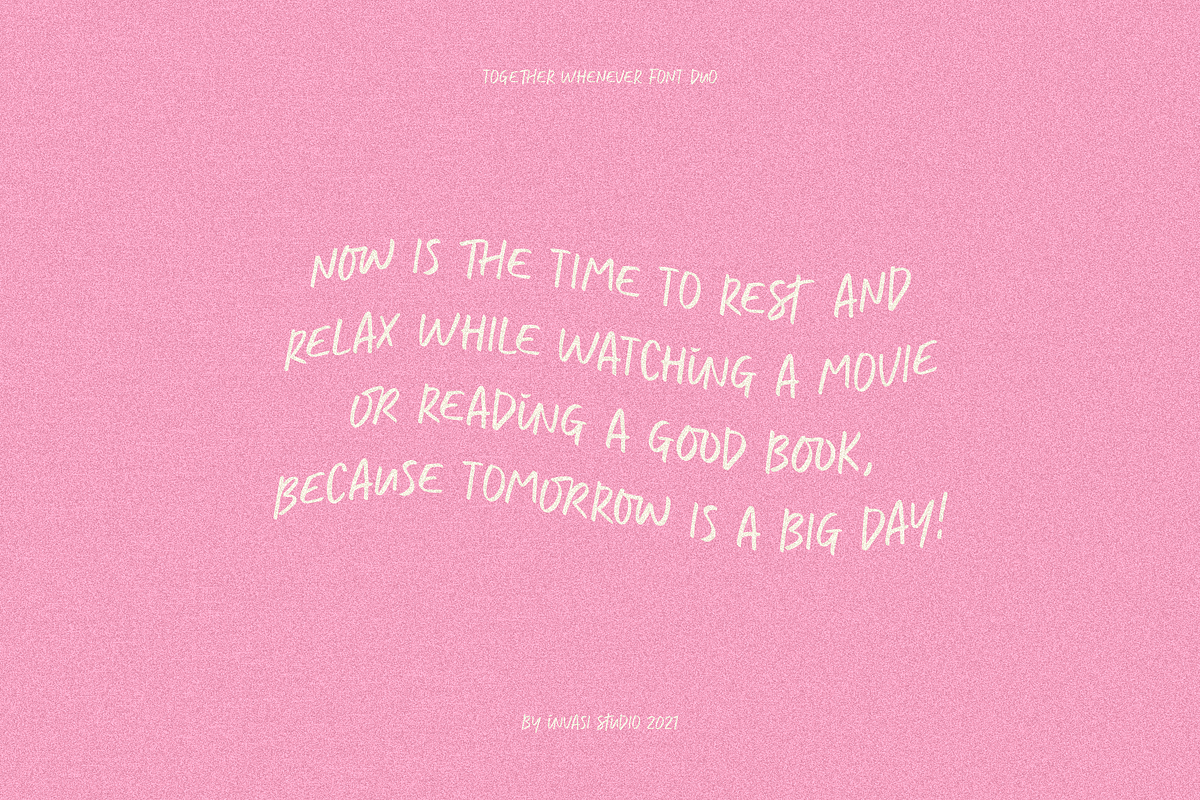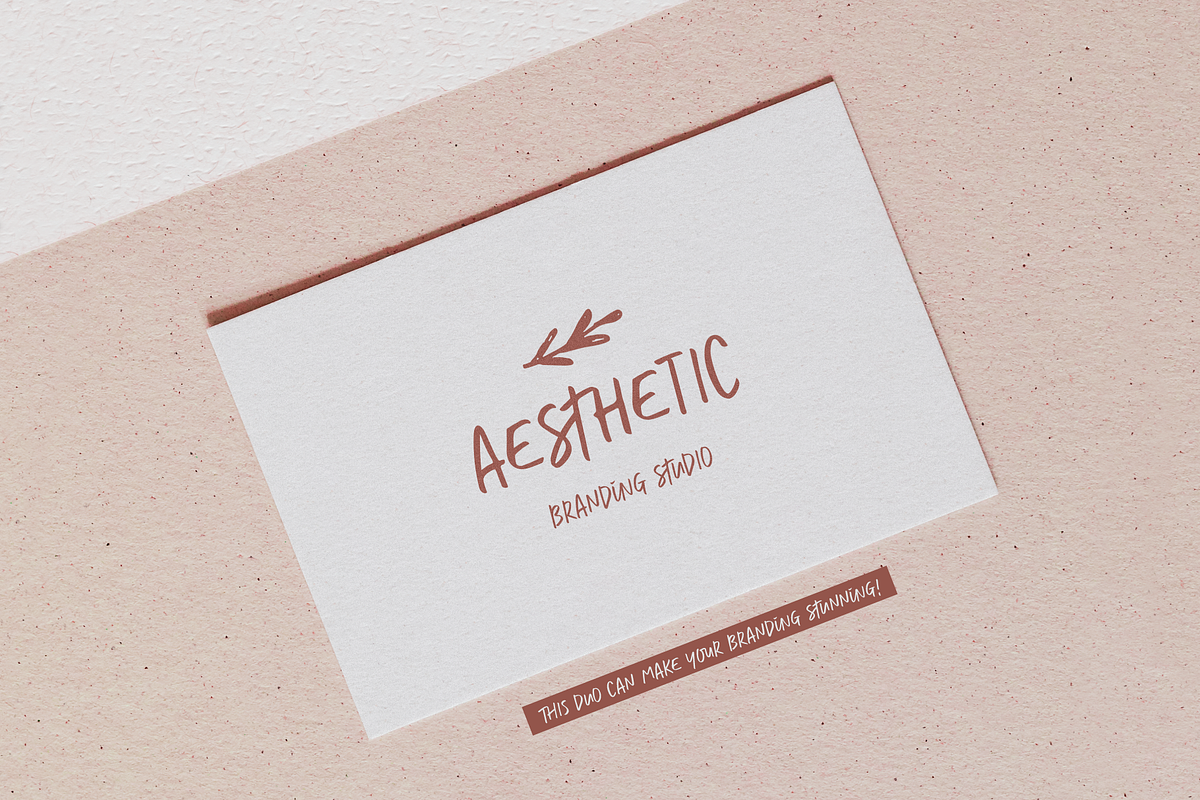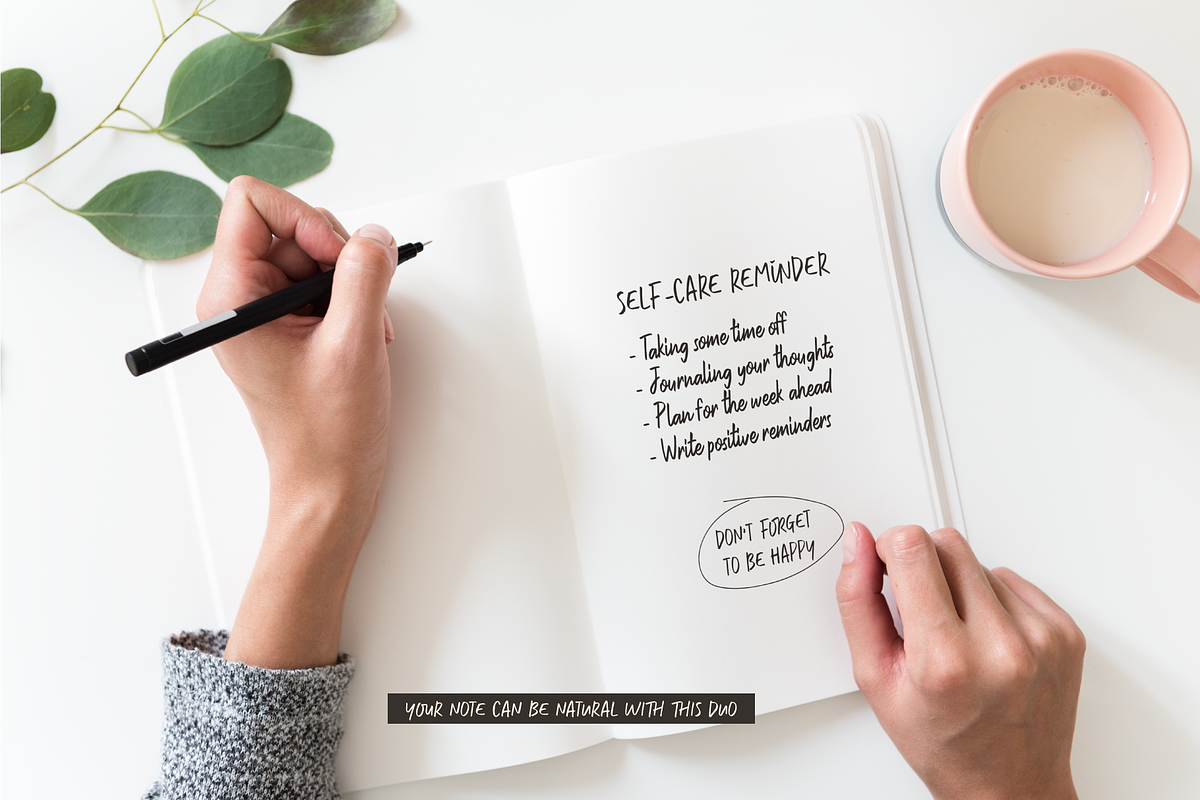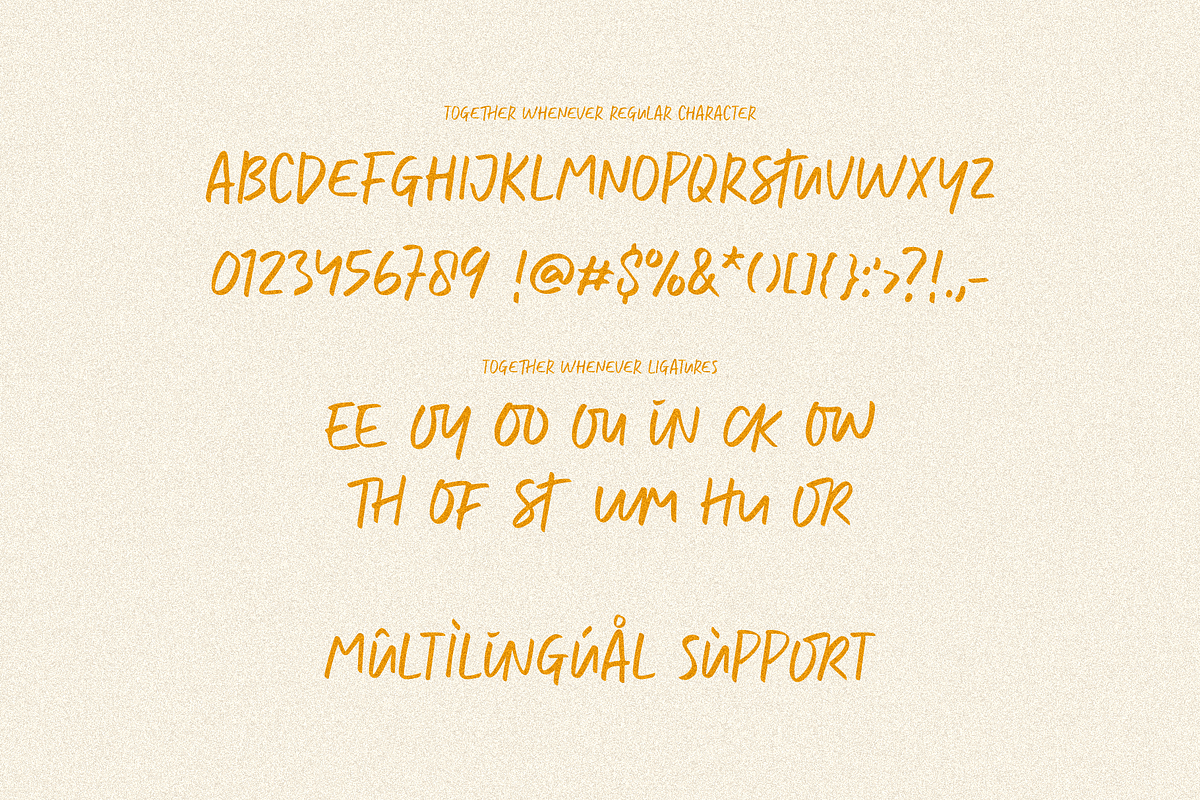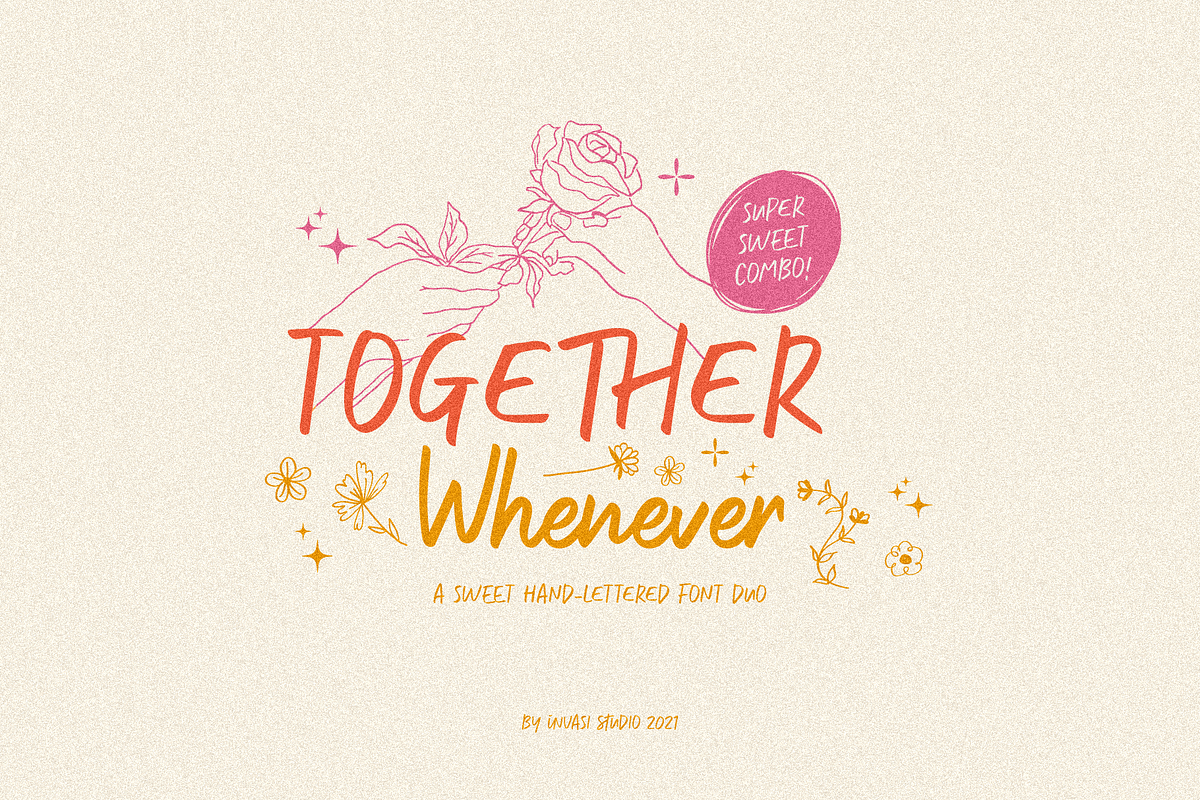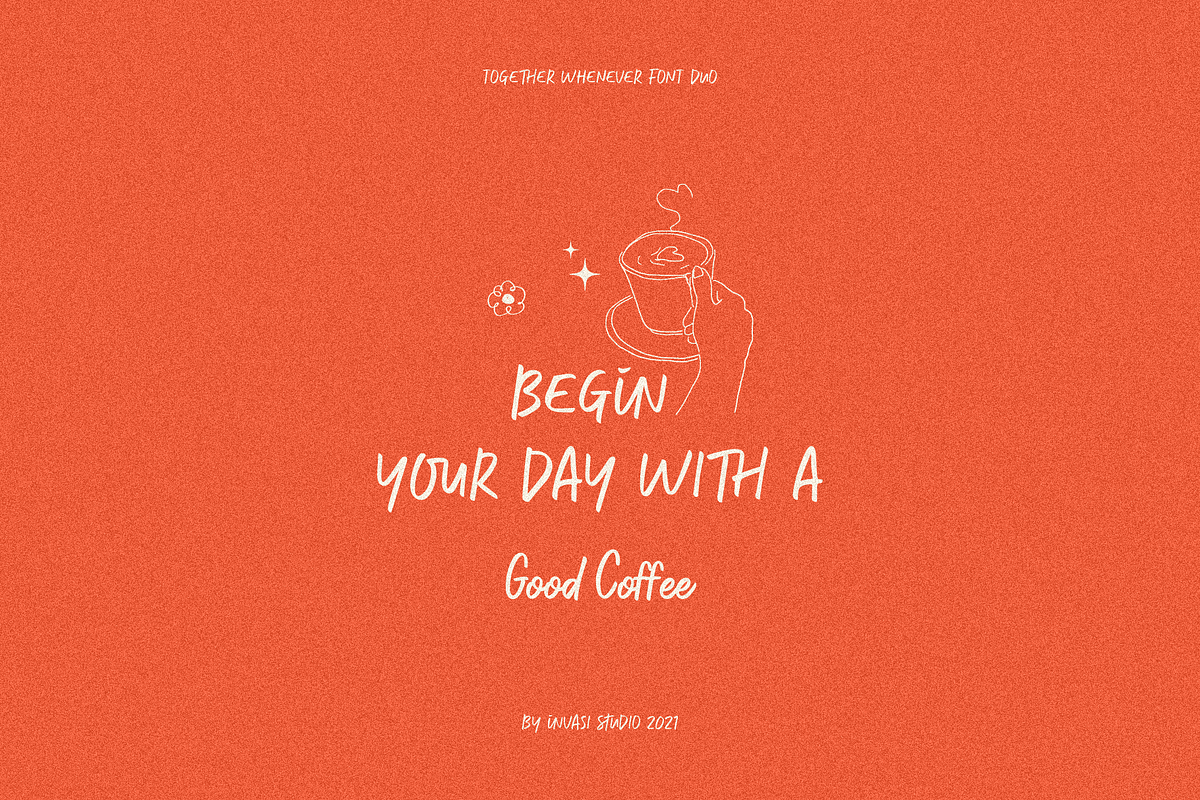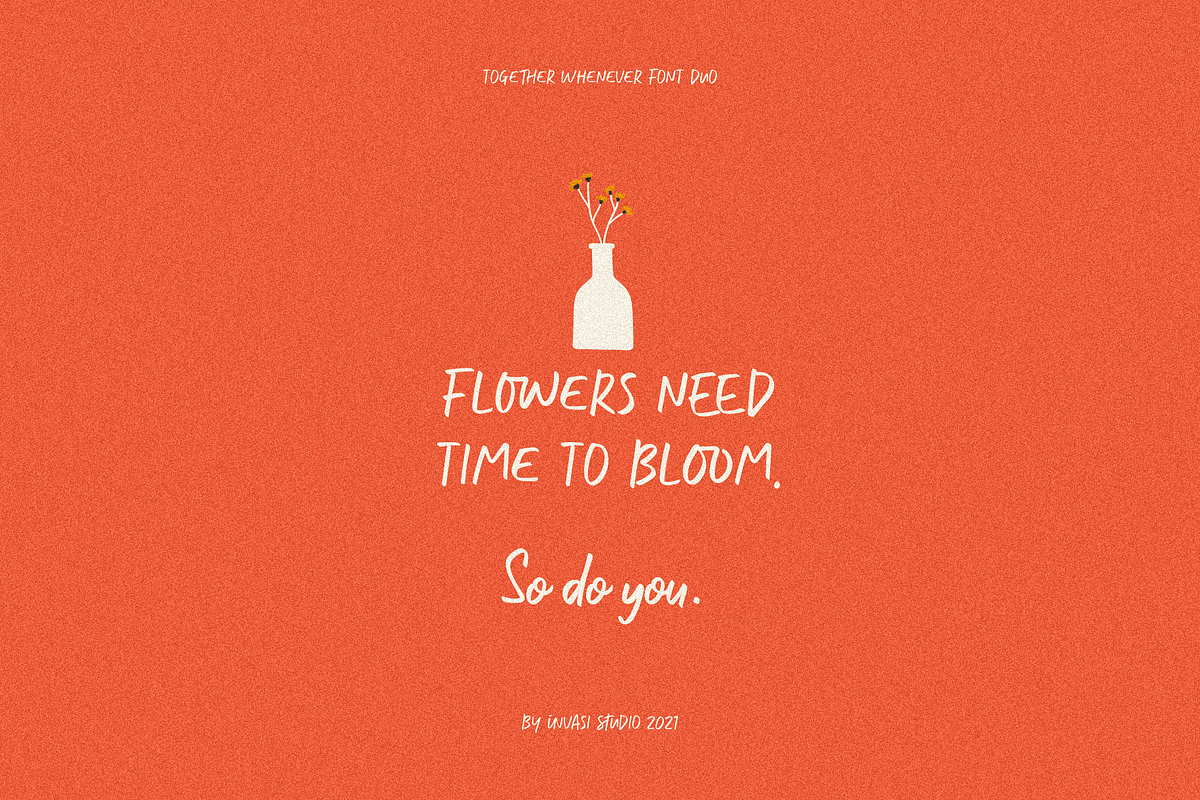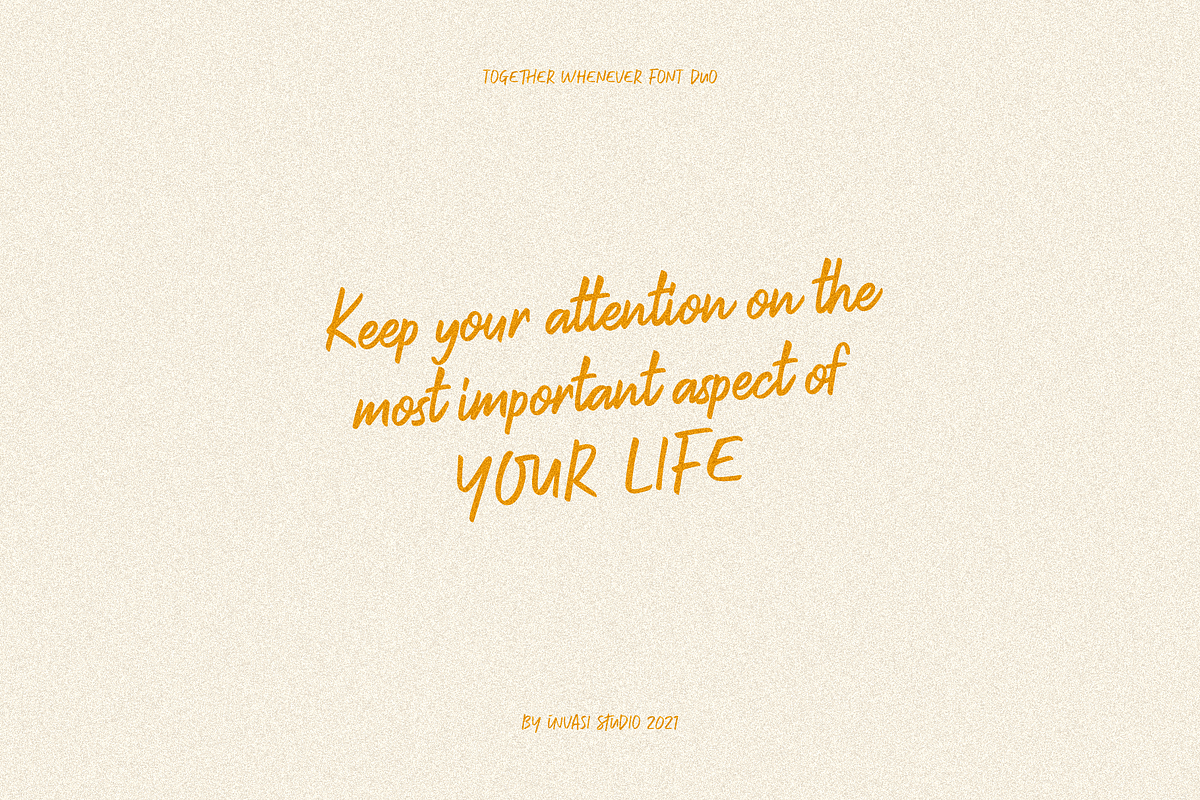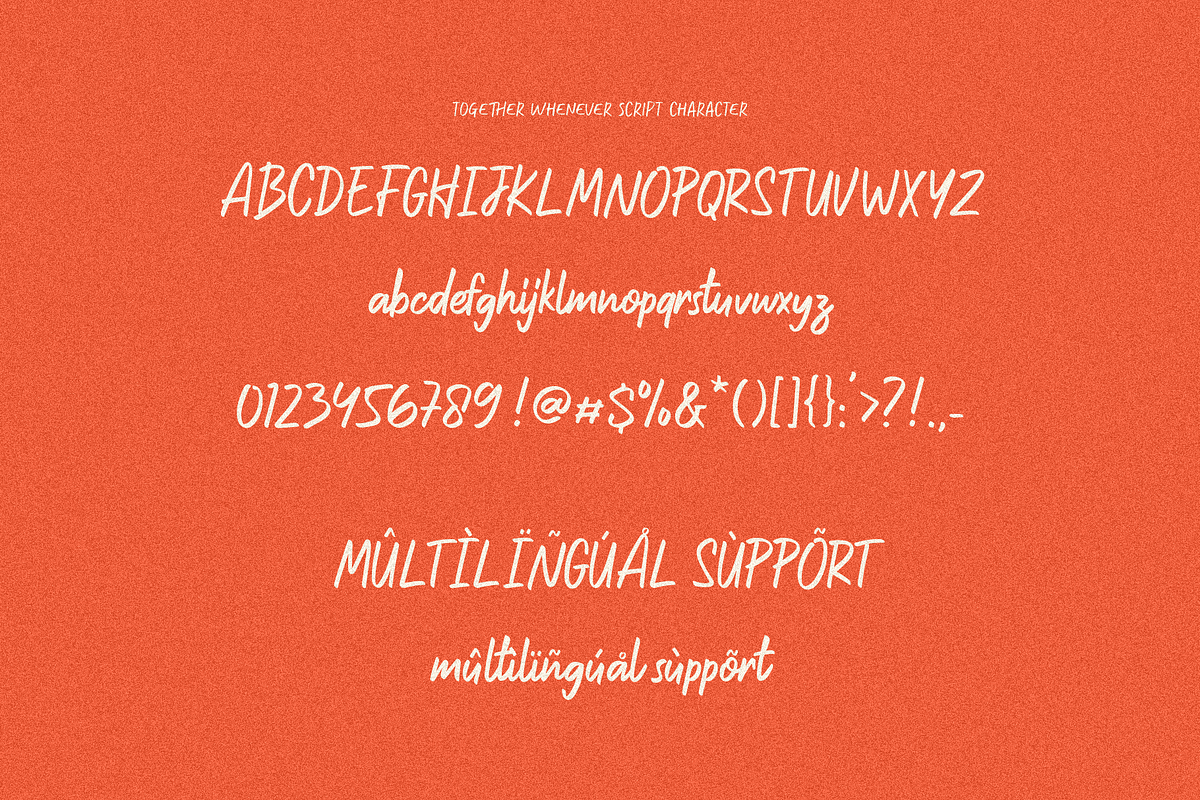
Together Whenever Font Duo
The Together Whenever a sweet hand-lettered Font Duo. A casual handwriting marker style all-caps font and a matching Script make up this combo. It can be easily matched to an incredibly wide variety of projects, so try incorporating it into your creative ideas and see how it elevates them! This font is suitable for headlines, flyers, greeting cards, product packaging, book covers, printed quotes, logotype, and album covers, among other applications.
- Multilanguage